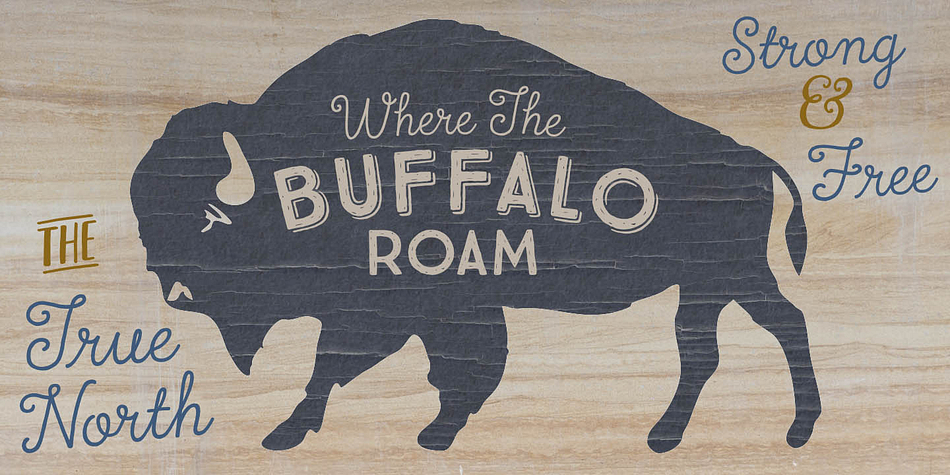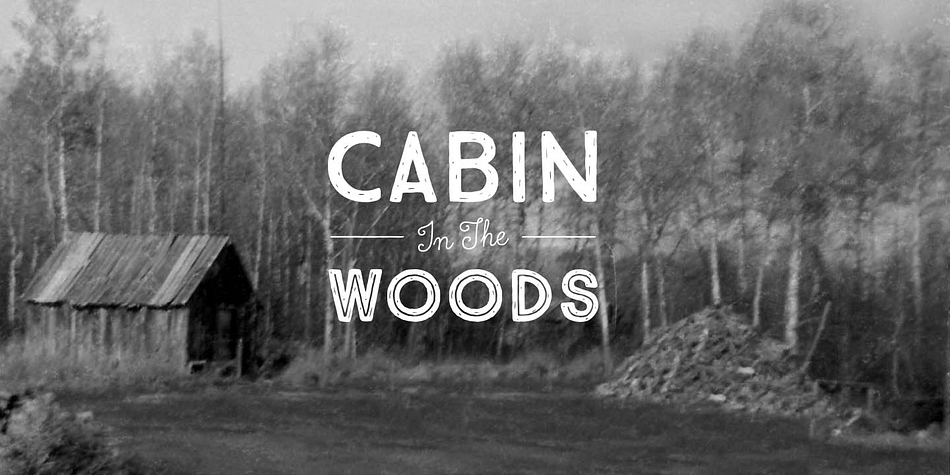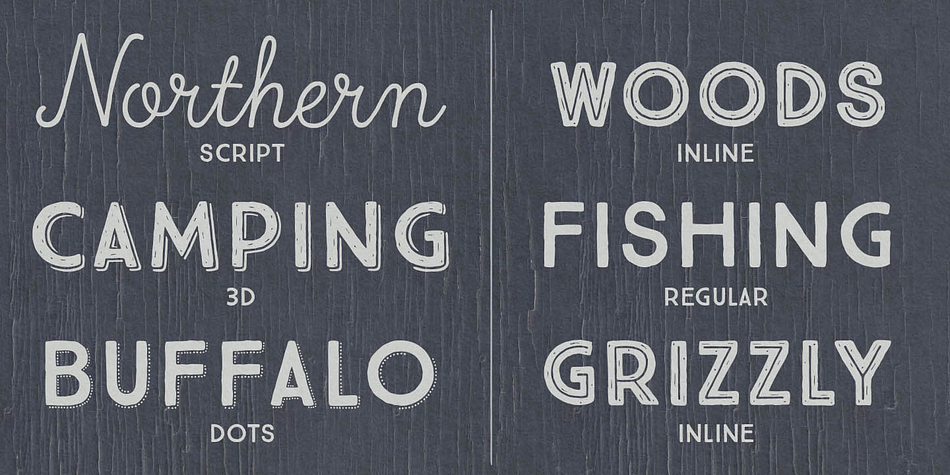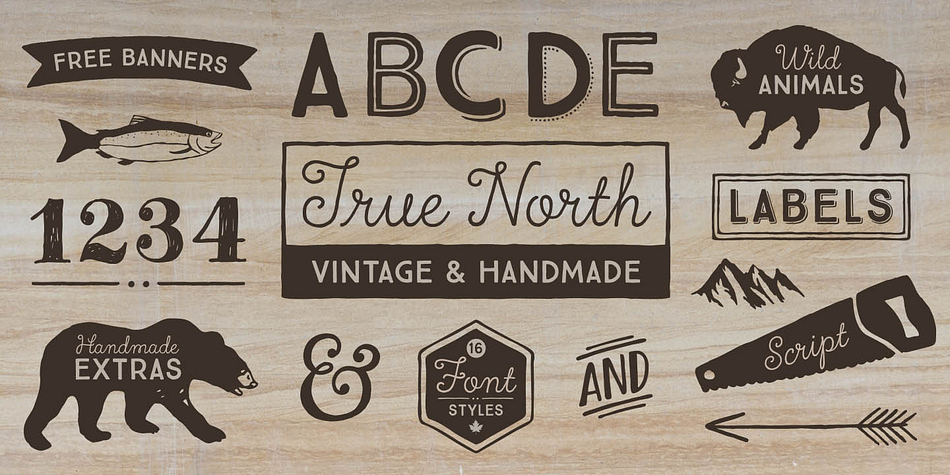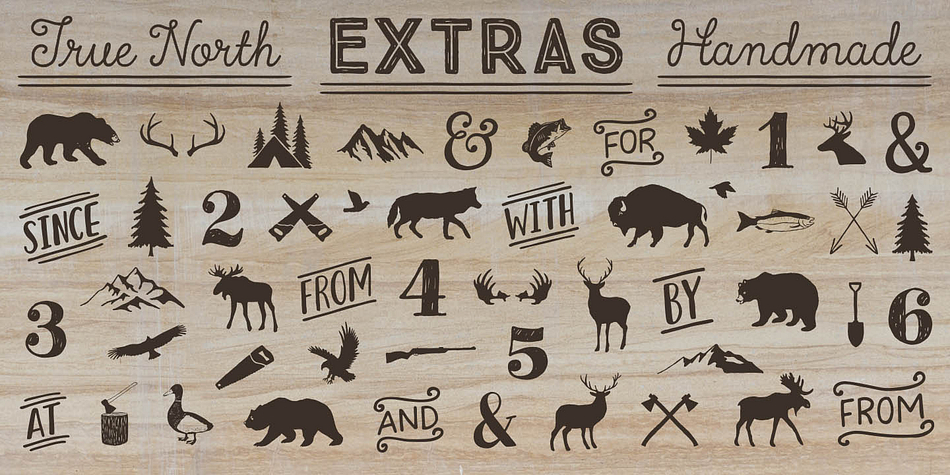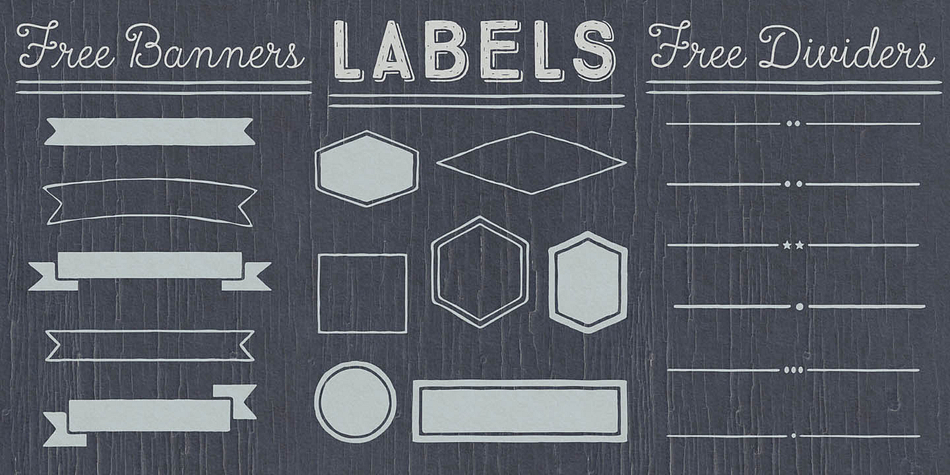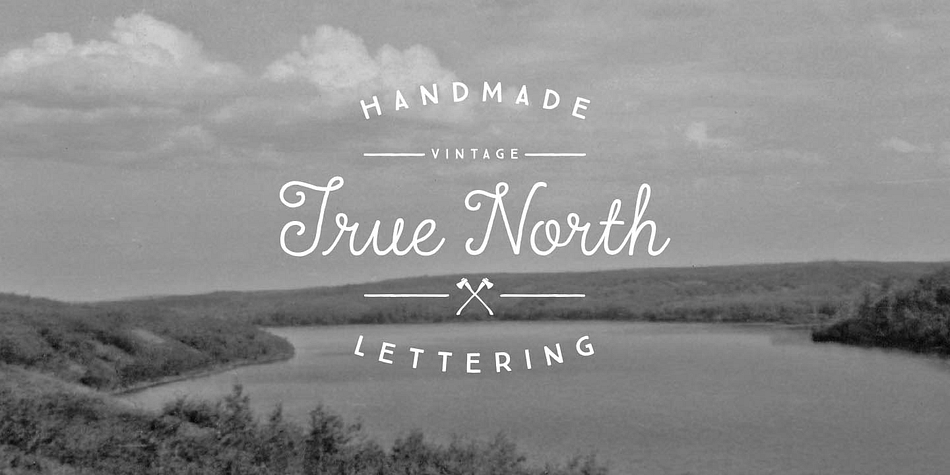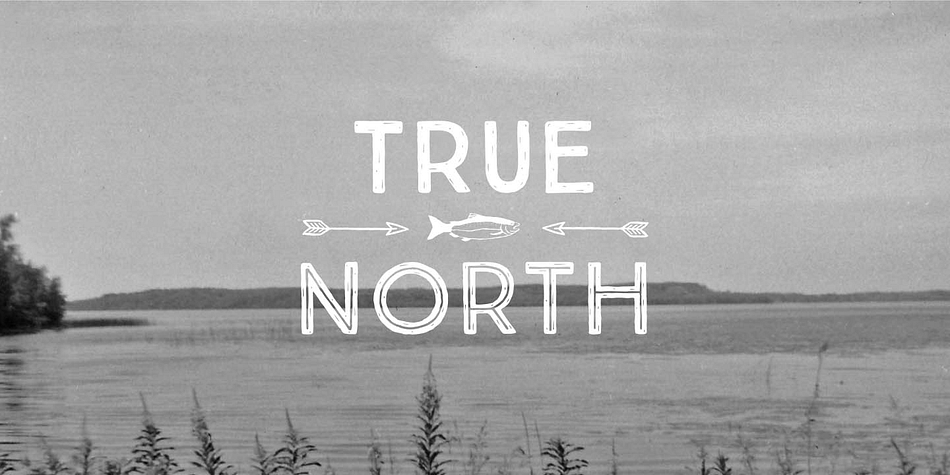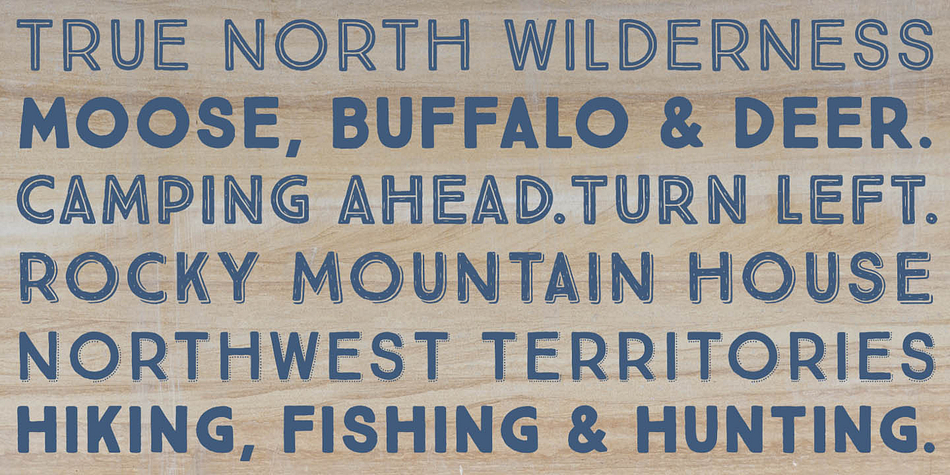
True North is a multiple classification font family. This typeface has twenty styles and was published by Cultivated Mind.
True North
True North is a vintage inspired typeface with 16 styles and a monoline script. True North comes with labels, extras and free banners. Extras include wild animals, catchwords, numbers, symbols, tools, maple leaves and trees.
True North is a headline font with alternate capitals. Combine all 16 styles with the script, banners, labels and extras and you get a wonderful vintage design.
True North Script is a playful, fully-connected monoline script full of ligatures and alternate forms. Its wide range of international characters and alternate use of the power of OpenType automatically creates the feel of hand-lettering.